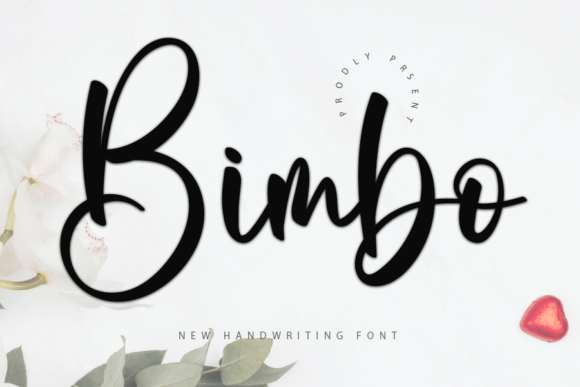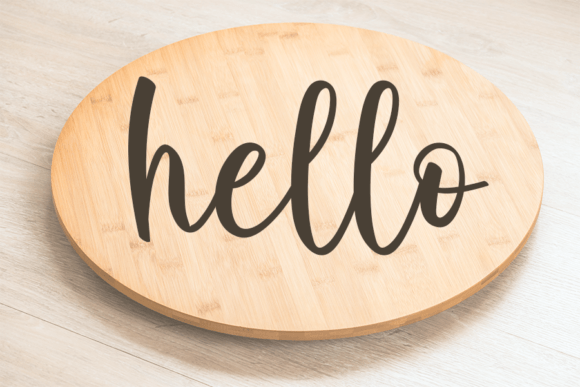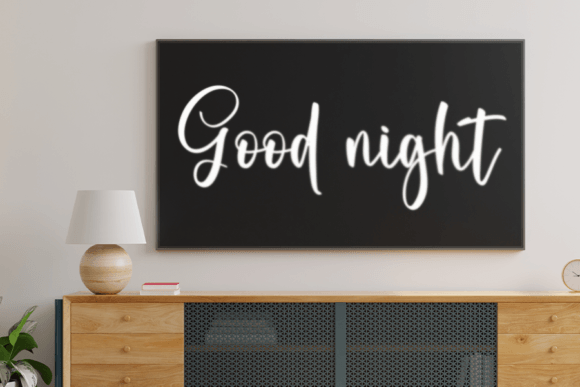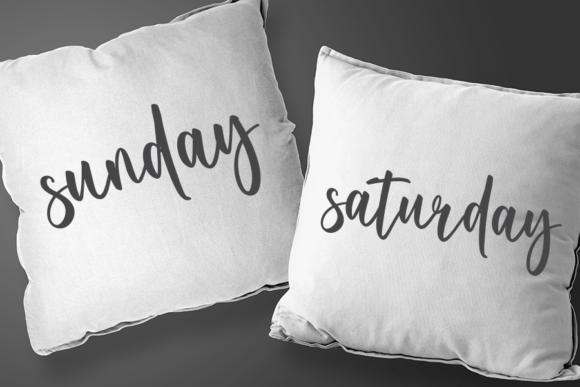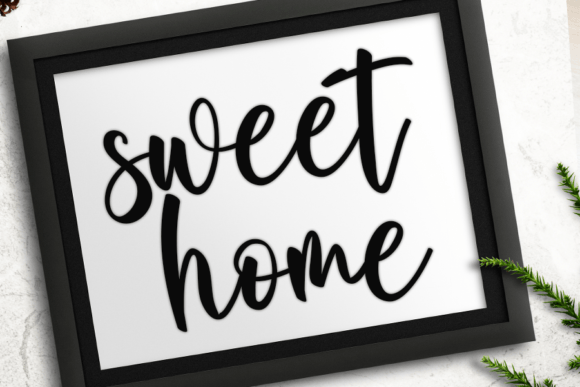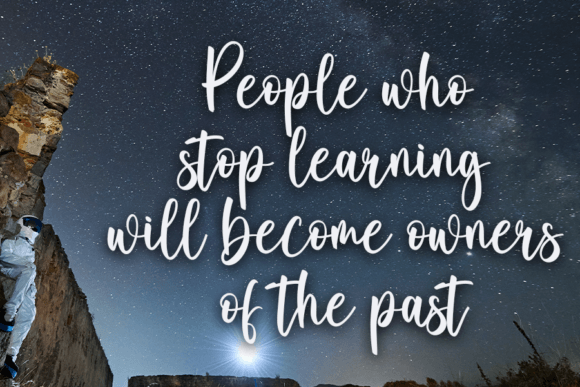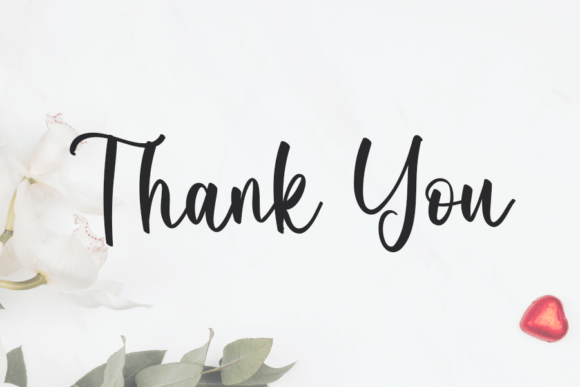
Bimbo Font
About Bimbo Font
Bimbo Font is a quirky handwritten script that blends simplicity with modern elegance. With playful strokes and a refined appearance, this typeface brings sophistication and originality to both personal and professional projects. Because of its versatile design, Bimbo Font is perfect for invitations, greeting cards, logos, posters, and branding.
A Quirky Handwritten Typeface with Modern Elegance
Handwritten fonts naturally add character, and Bimbo Font enhances this with a stylish, contemporary appeal. Its neat rhythm provides readability, while its playful details add uniqueness. Moreover, its modern form adapts well to both casual and professional layouts. As a result, this font is a dependable option for creatives who want originality combined with elegance.
For personal stationery, Bimbo Font is an excellent choice. For example, it can transform a wedding invitation into a keepsake filled with style and charm. In addition, it works beautifully for thank-you notes, birthday greetings, and seasonal cards. Because of its quirky elegance, every design feels heartfelt, stylish, and memorable.
A Script Typeface for Logos and Branding
Brands and professionals looking to stand out can rely on Bimbo Font. It brings personality and sophistication to logos, packaging, and labels. Furthermore, on social media, it enhances posts, stories, and promotional graphics with creativity. When paired with minimalist sans serif fonts, Bimbo Font achieves balance between professionalism and charm.
Another advantage of Bimbo Font is its adaptability across platforms. In print, it looks stunning on posters, brochures, magazines, and merchandise. Digitally, it elevates websites, blogs, and presentations with a handwritten appeal. Since it remains clear in both small and large sizes, this handwritten script is reliable for diverse creative applications.